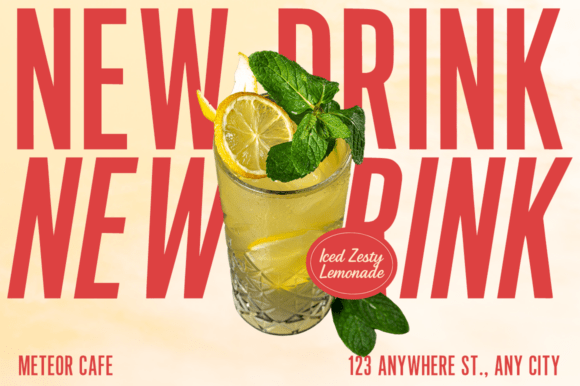
Garlic Shine Font
Discover the enchanting power of Shine Garlic – a spectacular Font Duo Bundle. Shine Garlic pristinely pairs a commanding modern sans attitude with the graceful charm of handwritten script. This dynamic duo effortlessly juxtaposes boldness and elegance, presenting a harmonious blend of vigor and finesse. Its multifaceted nature makes it an unmissable choice for an assortment of design endeavors, seamlessly catering to both strength and sophistication. Make a statement with Shine Garlic, a font that truly radiates versatility.